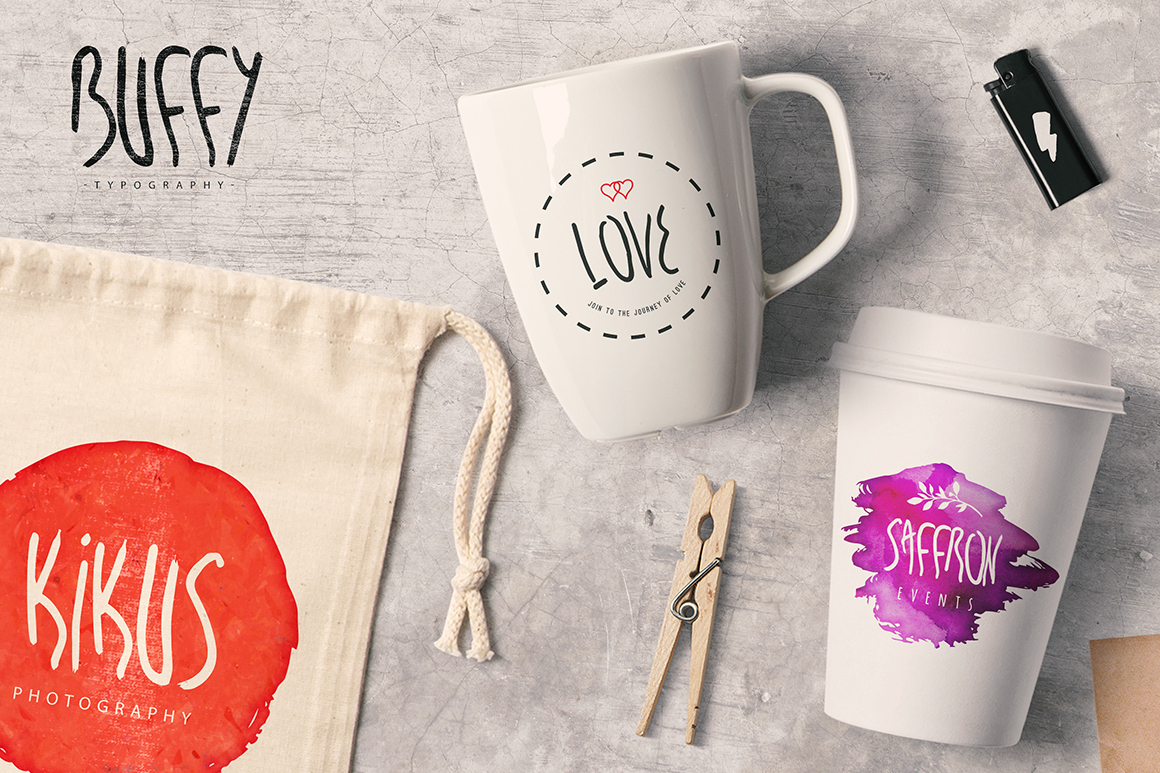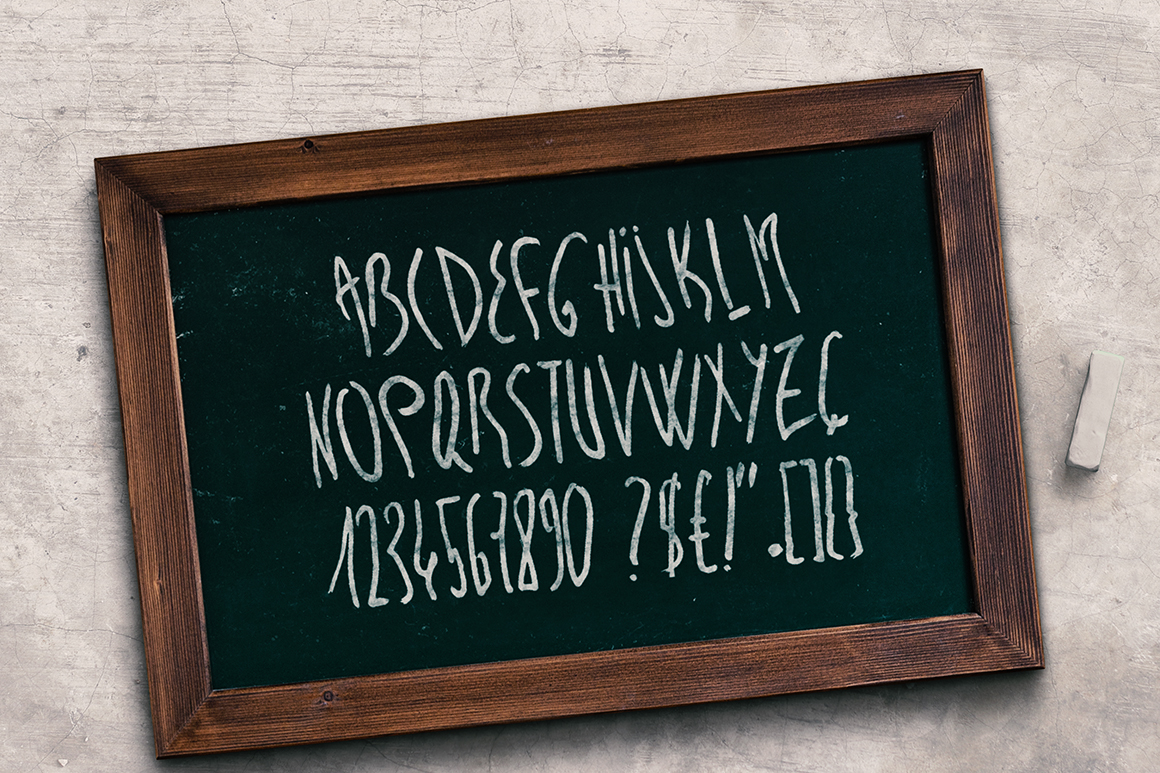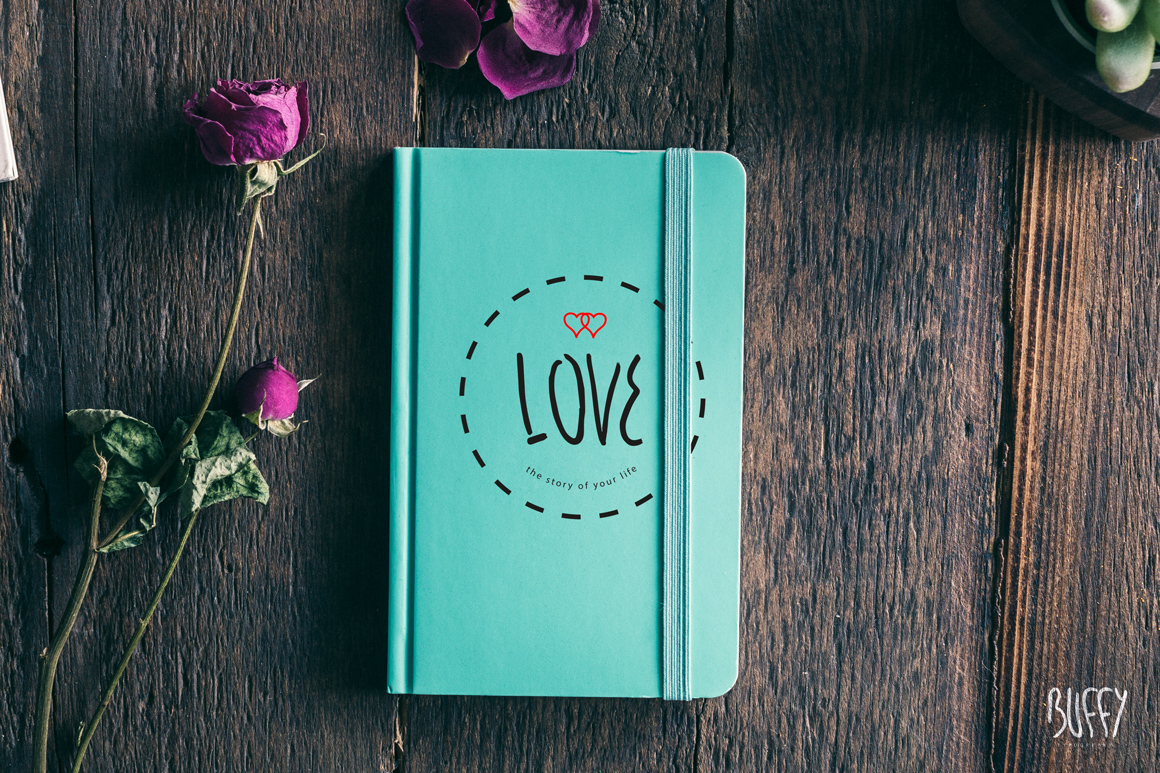
Introducing Buffy Font: The Fun and Quirky Display Font You Never Knew You Needed
Are you tired of using the same old boring fonts in your designs? Look no further! Buffy Font is here to shake things up with its fluid, wobbly, and fun display font that is sure to capture the attention of your audience. In this article, we’ll dive into the world of Buffy Font, exploring its unique features, uses, and benefits for designers and crafters alike.
What is Buffy Font?
Buffy Font is a display font that can be described as fluid, wobbly, and playful. Its fun and readable letters make it perfect for designs that require a bit of personality and whimsy. The font’s unique design is sure to add a touch of humor and friendliness to any project, making it ideal for designs that need to stand out from the crowd.
Key Features of Buffy Font
- Fluid and Wobbly Design: Buffy Font’s fluid and wobbly design gives it a unique and playful feel that’s sure to capture attention.
- Fun and Readable Letters: The font’s letters are designed to be fun and easy to read, making it perfect for display text and headings.
- Quirky and Whimsical: Buffy Font’s quirky and whimsical design makes it perfect for designs that require a bit of personality and humor.
Uses of Buffy Font
Buffy Font is a versatile font that can be used in a variety of design projects, including:
- Signage and Posters: Buffy Font’s bold and playful design makes it perfect for signage and posters that need to grab attention.
- Digital Media: The font’s fun and quirky design makes it ideal for digital media, such as social media graphics, videos, and animations.
- Branding and Packaging: Buffy Font’s unique design makes it perfect for branding and packaging projects that require a bit of personality and whimsy.
- Crafting and Scrapbooking: The font’s playful design makes it ideal for crafting and scrapbooking projects that require a fun and quirky touch.
Benefits of Using Buffy Font
There are many benefits to using Buffy Font in your designs, including:
- Adds Personality to Your Designs: Buffy Font’s unique design adds a touch of personality and whimsy to any project.
- Grabs Attention: The font’s bold and playful design is sure to grab attention and capture the interest of your audience.
- Easy to Read: Despite its playful design, Buffy Font is easy to read, making it perfect for display text and headings.
- Versatile: Buffy Font can be used in a variety of design projects, from signage and posters to digital media and branding.
Tips for Using Buffy Font
Here are a few tips for using Buffy Font in your designs:
- Use it as a Display Font: Buffy Font is designed to be used as a display font, so use it sparingly to add emphasis and personality to your designs.
- Pair it with a Simple Font: Pair Buffy Font with a simple font to create contrast and add visual interest to your designs.
- Experiment with Colors and Textures: Buffy Font’s playful design lends itself well to experimentation with colors and textures, so don’t be afraid to try new things.
In conclusion, Buffy Font is a fun and quirky display font that’s sure to add personality and whimsy to any design project. Its fluid, wobbly design and fun, readable letters make it perfect for a variety of uses, from signage and posters to digital media and branding. With its many benefits and versatility, Buffy Font is a great addition to any designer’s toolkit.
So why not give Buffy Font a try? With its unique design and playful personality, it’s sure to bring a smile to your face and a touch of fun to your designs.